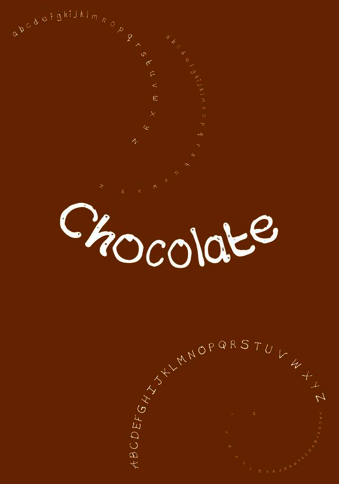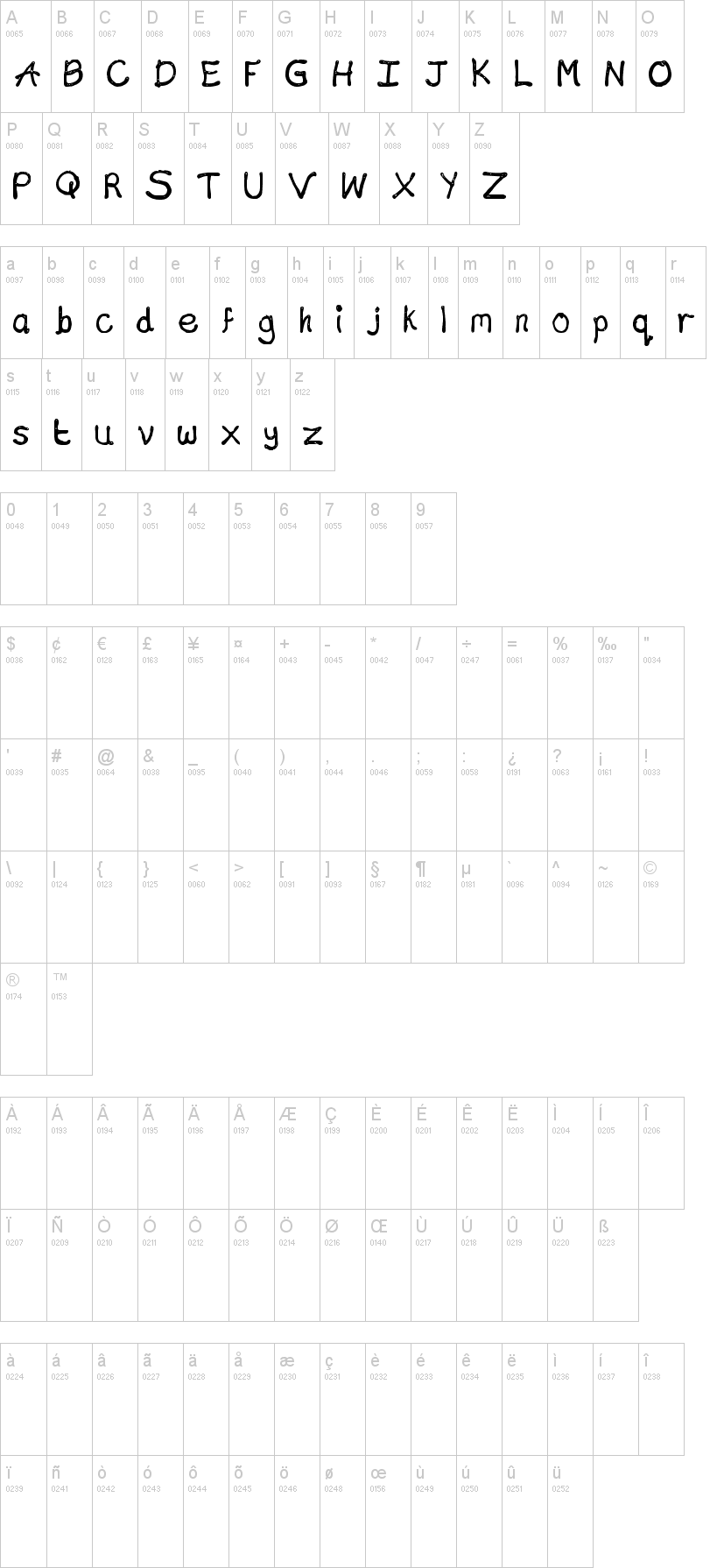
Шрифт Chocolate Type
This is a chocolate typeface I created for a branding project I did for a milkshake bar. This was created by hand using chocolate to get that real chocolate feel and is now a working typeface!